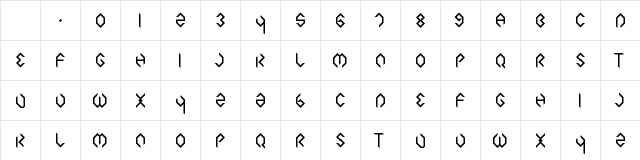
Complete 80s Metal Band Regular glyph index. Displaying only characters natively supported by 80s Metal Band Regular font.
80s Metal Band is a composed and adaptable typeface that performs quietly and consistently across a wide range of design contexts.